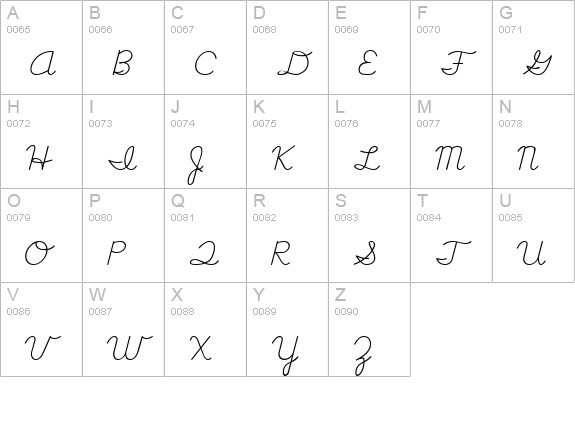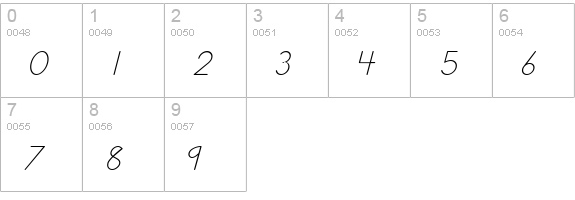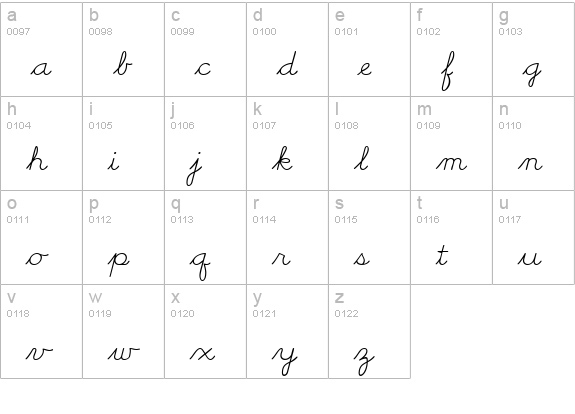
Cursive Handwriting Tryout Font Details
Cursive Handwriting Tryout font is a charming and elegant script typeface that brings a touch of sophistication to any design project. With its flowing and graceful strokes, this font exudes a sense of timeless beauty and refinement. Perfect for adding a personal and handwritten touch to invitations, cards, logos, and more, Cursive Handwriting Tryout font is sure to elevate your creative projects to the next level. What makes this font even more appealing is that it is completely free to download at FontsMarket.com. Yes, you read that right - you can enjoy the beauty and versatility of Cursive Handwriting Tryout font without spending a dime. So why wait? Add this exquisite font to your collection today and let your creativity soar!